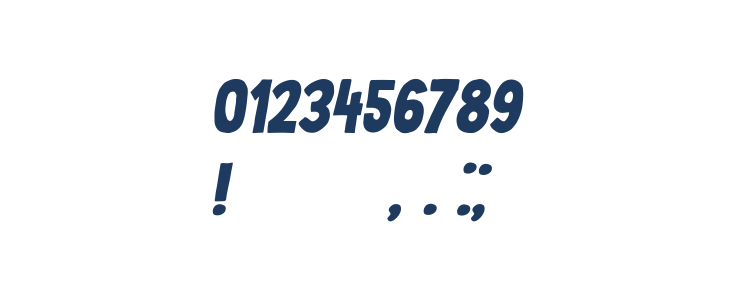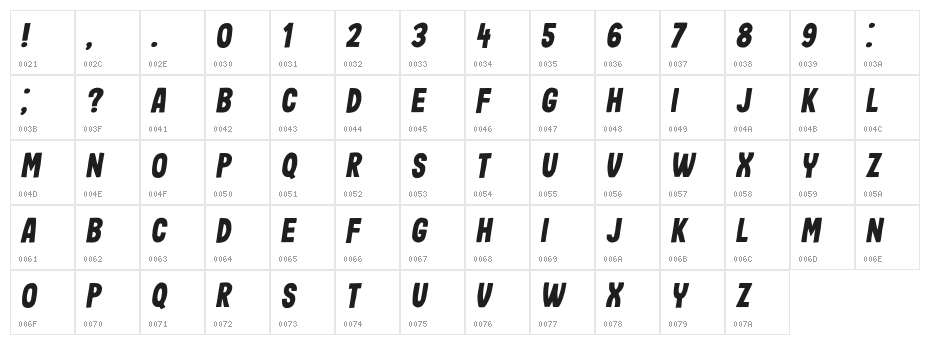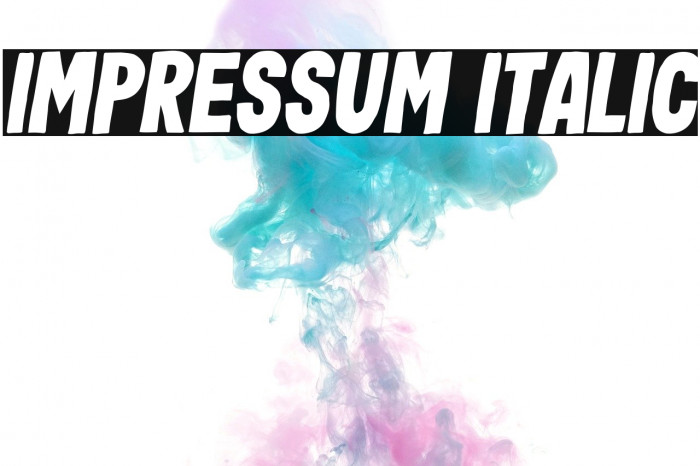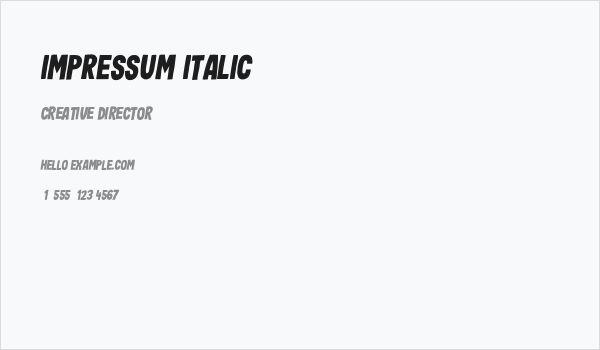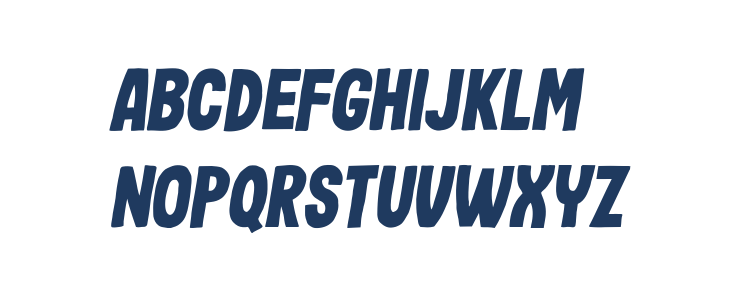
Impressum Italic Font
Impressum Italic Description
This font features a bold and dynamic style with a pronounced italic slant, giving it a sense of movement and energy. The characters are thick and robust, with a slightly condensed width that enhances its impactful appearance. The uppercase letters are strong and assertive, while the lowercase letters maintain a consistent flow, complementing the overall design. Numbers are equally bold, ensuring readability and emphasis. The font's design is modern and versatile, suitable for a variety of creative applications. Its unique style makes it stand out, perfect for projects that require a bold statement.
| Proposed Projects | Ideal for branding, advertising, posters, and headlines that require a strong visual impact. |